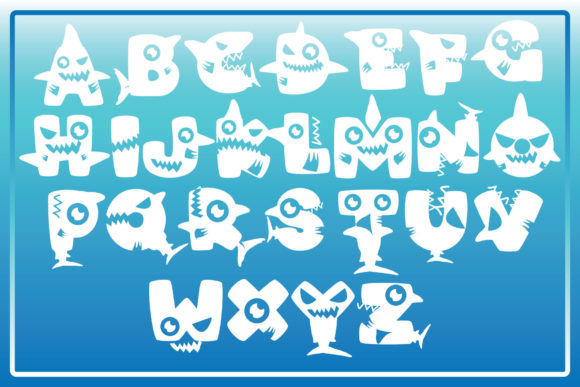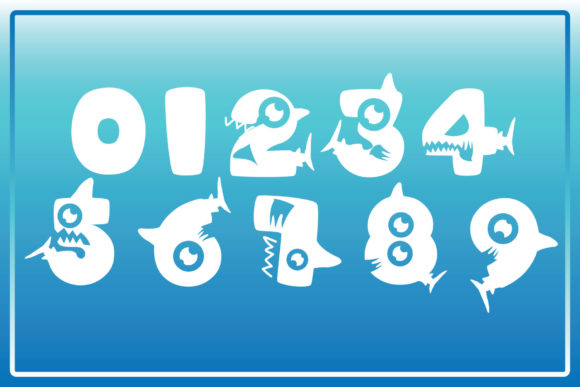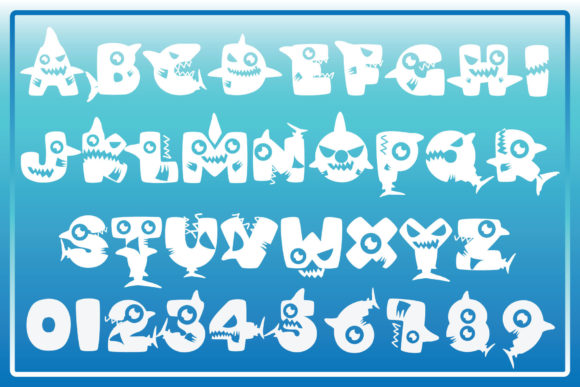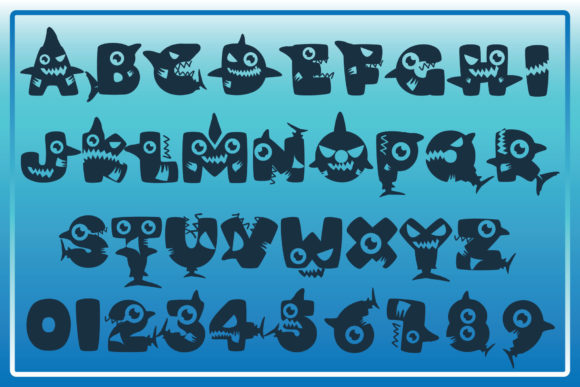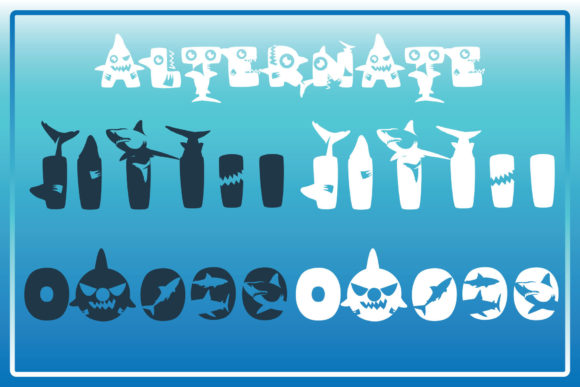
Introduction to Baby Sharkz Font
Baby Sharkz is a bold and incredibly cool decorative font.
It can be used for various design ideas, particularly those related to children, cartoons, and games Have fun with this beautiful font and explore its endless variations.
Key Features of Baby Sharkz Font
Why Choose Baby Sharkz Font?